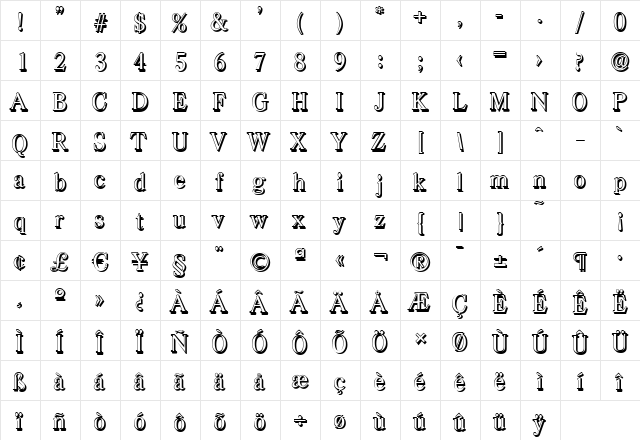
WesleyBeckerShadow Regular Font Preview
WesleyBeckerShadow Regular
Design Context for WesleyBeckerShadow Typeface
WesleyBeckerShadow brings ornamental detail and strong personality to headlines and identities, where visual impact matters more than quiet functionality.
Font Pairing: Pair with a clean neutral sans-serif for body copy to let WesleyBeckerShadow's character lead without overwhelming the composition.
Pro Tip: Use WesleyBeckerShadow exclusively at display sizes — it was designed to be seen, not read at length. Let a neutral companion handle body copy.